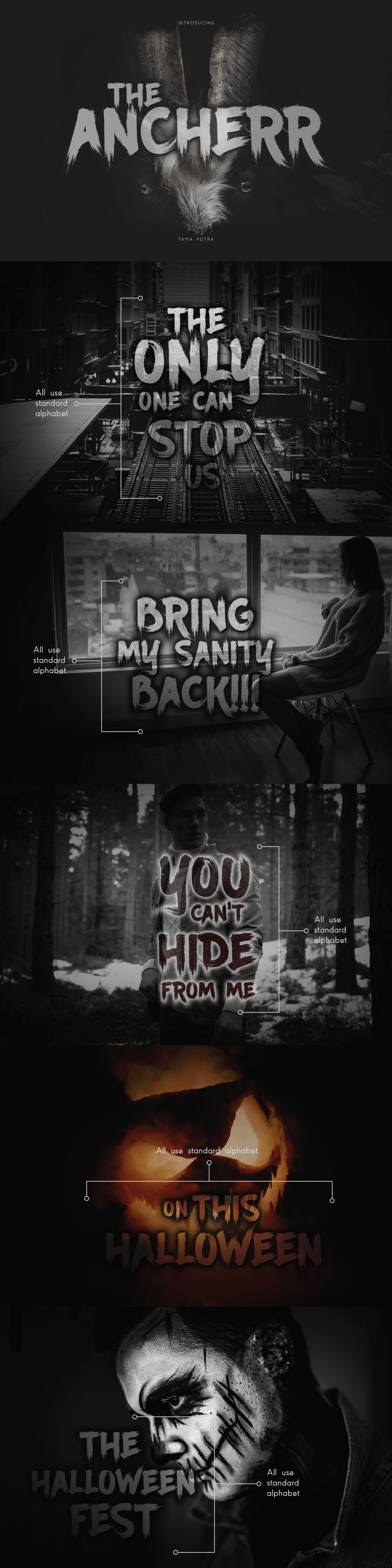
Ancherr Horror Brush Font
Ancherr Typeface
Ancherr is a horror brush typeface and you can use it for halloween poster or flyer. It includes multi-lingual and currency support, numerals, and punctuations.
- Character Set A-Z (Uppercase & Lowercase)
This typeface can be put to many uses:
- Poster
- Banner Design
- T-shirt
- Another end products
Ancherr typeface is suitable font for creating beautiful things and many creative work.